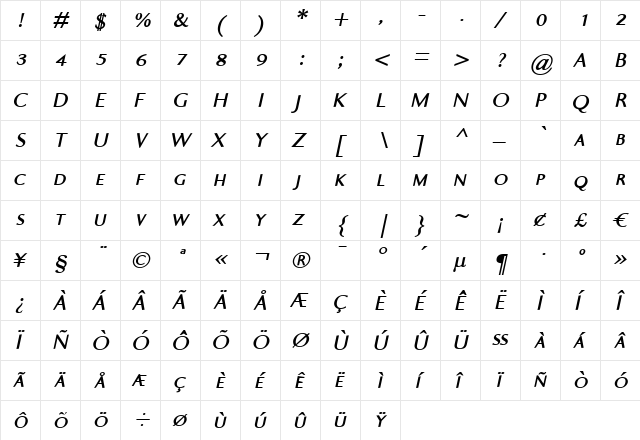
Ela Sans Bold Caps Italic
Design Context for Ela Sans Bold Caps Typeface
Ela Sans Bold Caps is a composed and adaptable typeface that performs quietly and consistently across a wide range of design contexts. The dynamic lean of this cut emphasises speed and emphasis in any layout. Its bold stroke weight gives it real presence on the page.
Pro Tip: Use Ela Sans Bold Caps for emphasis, pull quotes, and subheadings where its slanted energy can add rhythm to the layout.